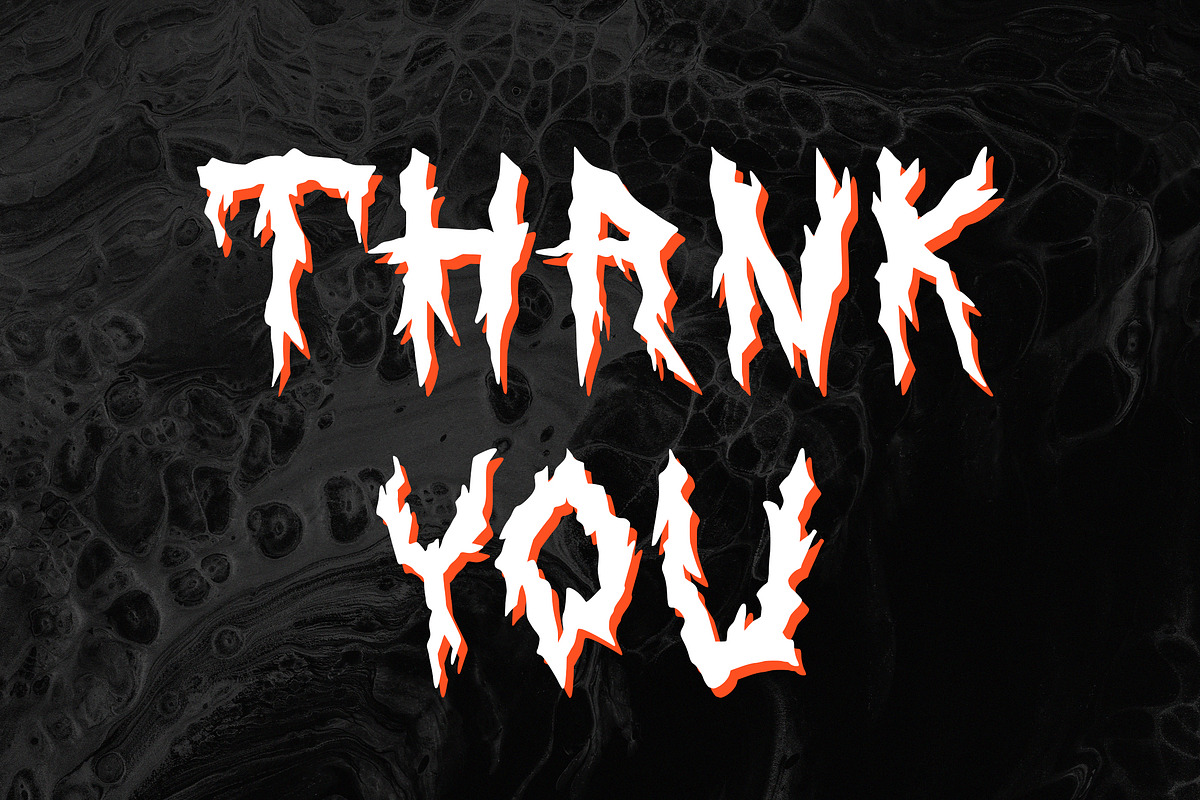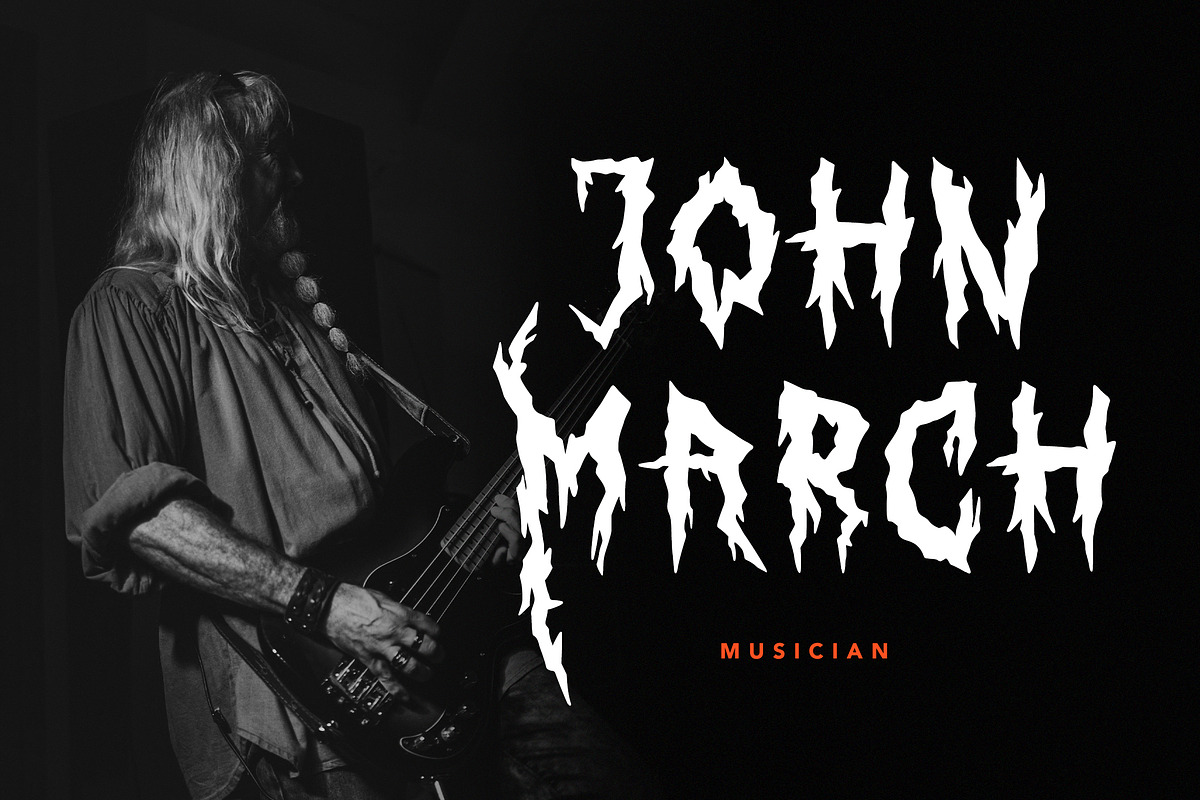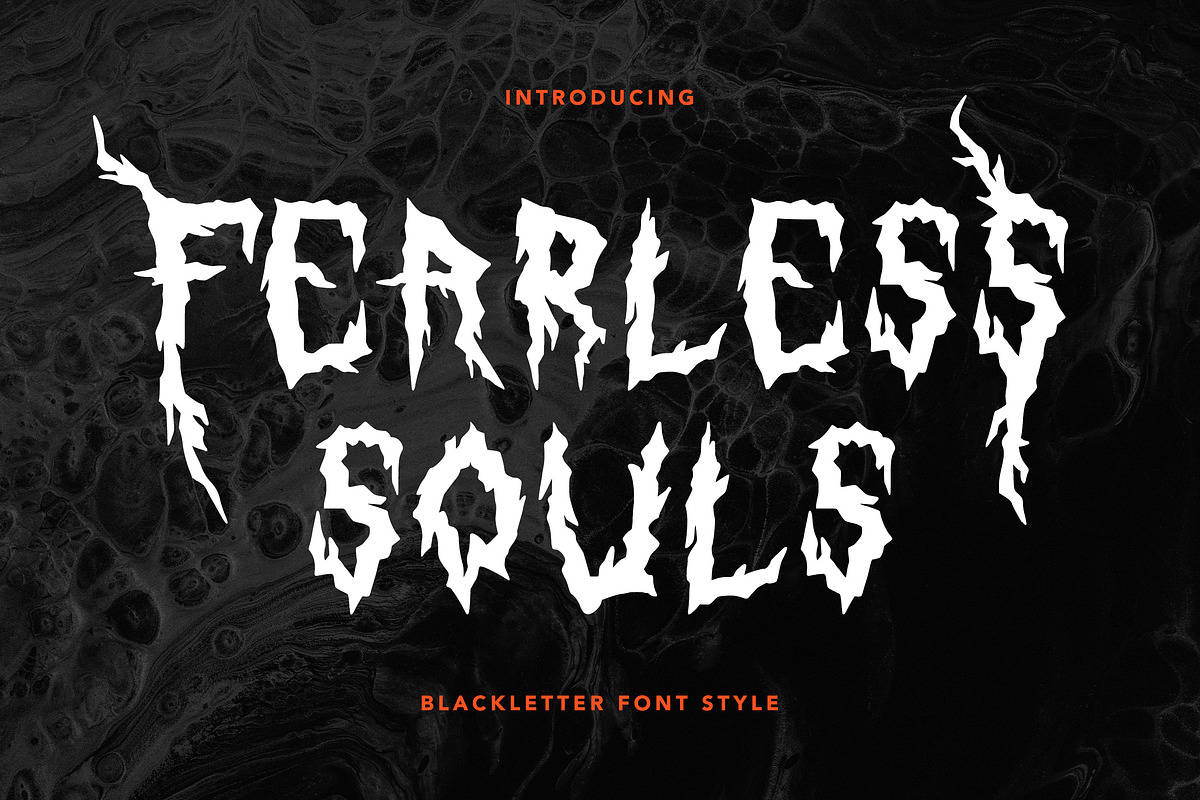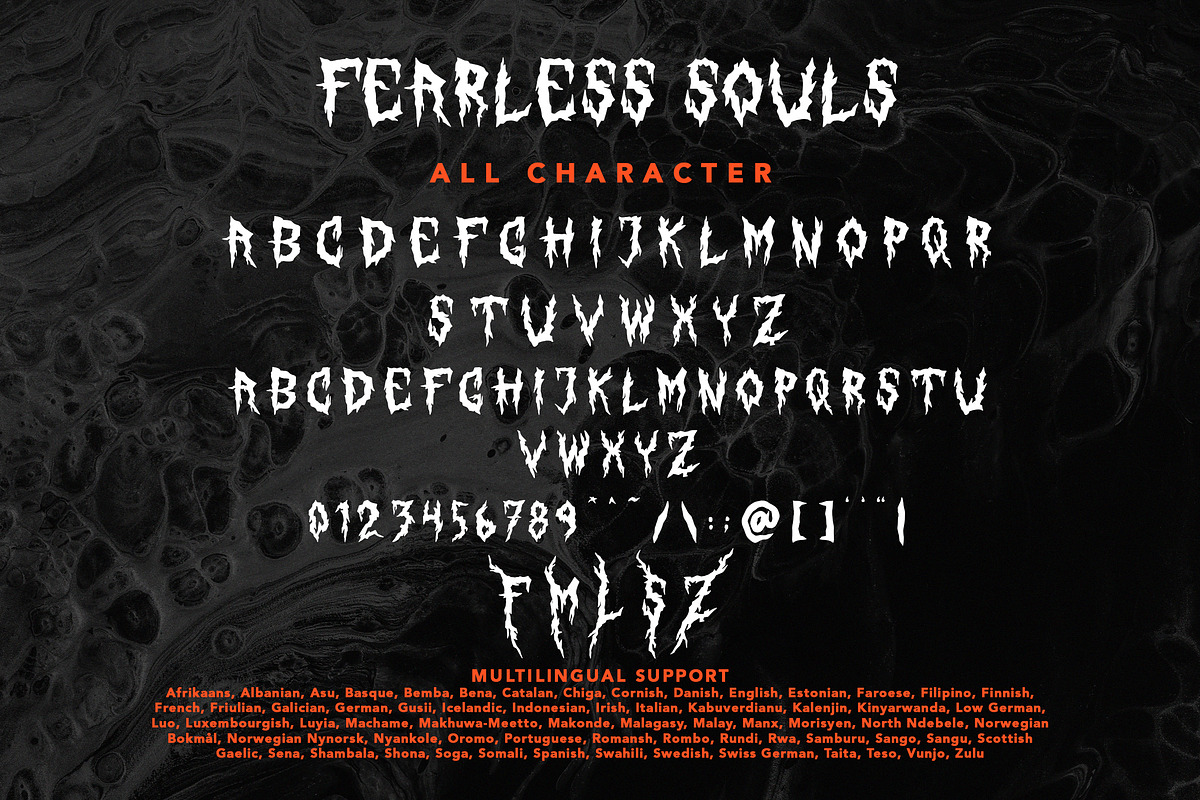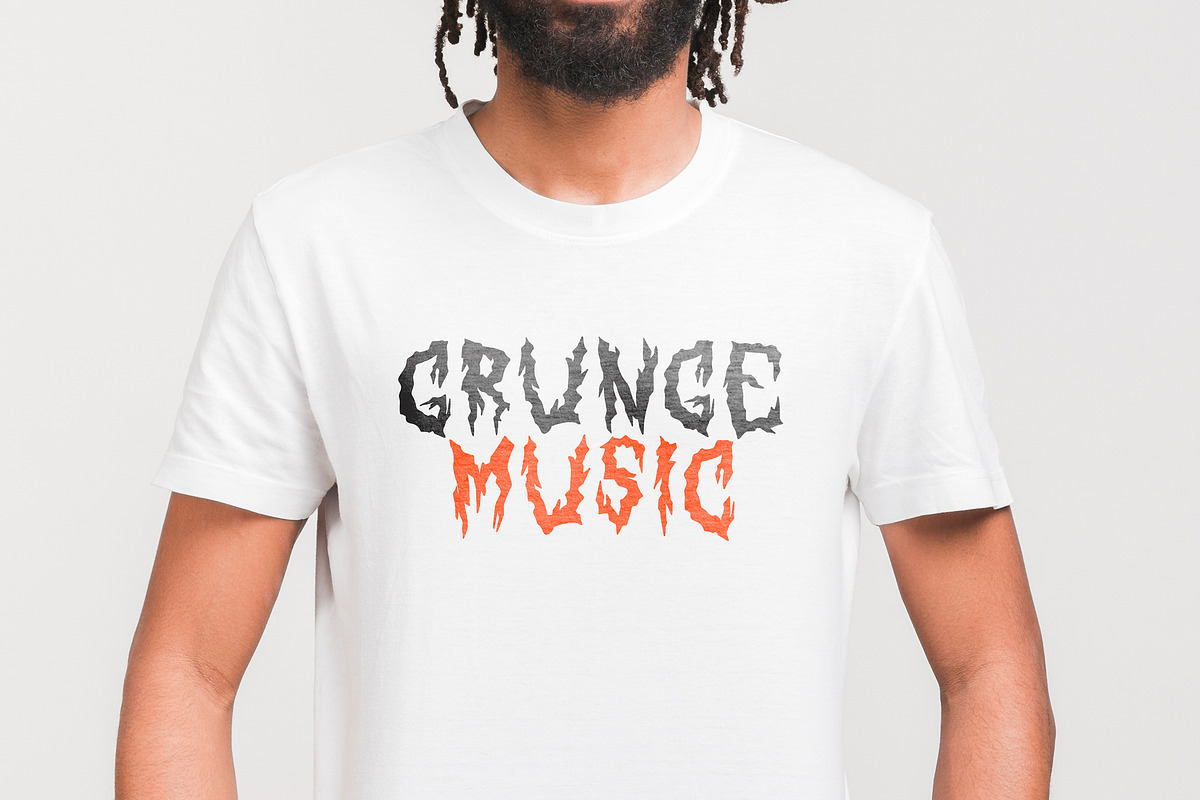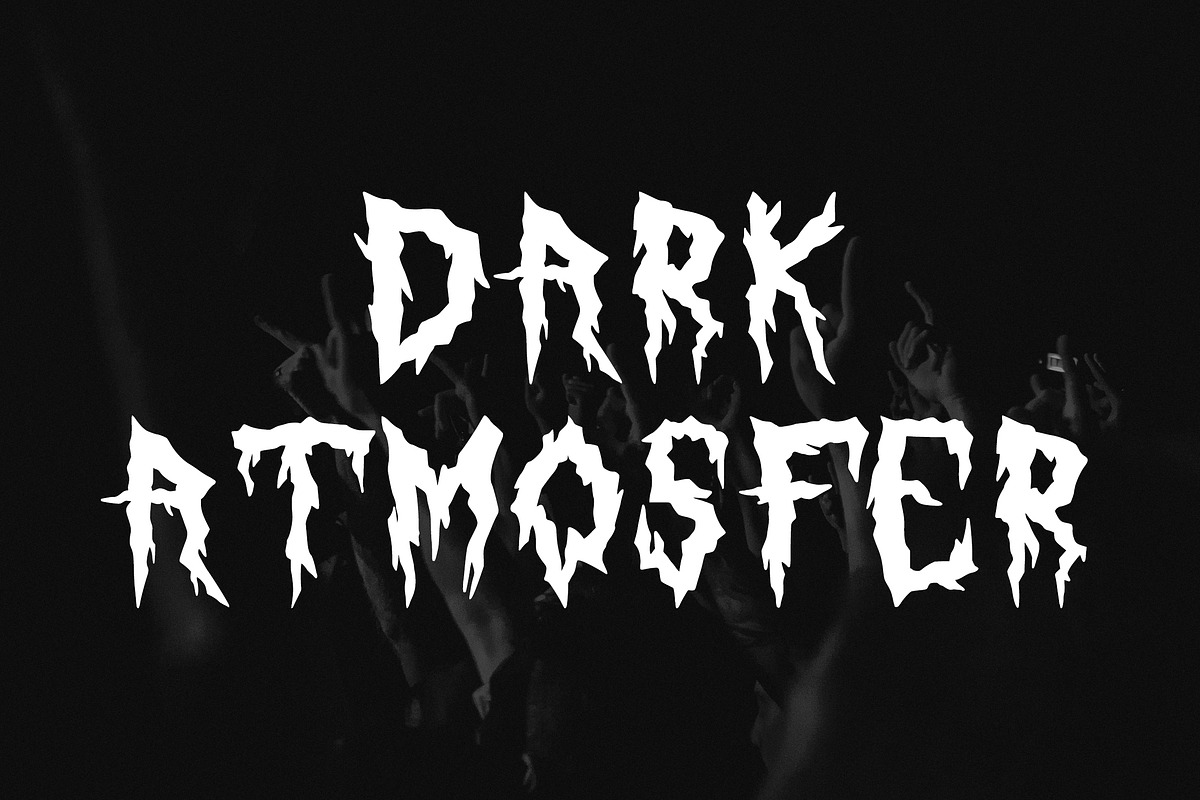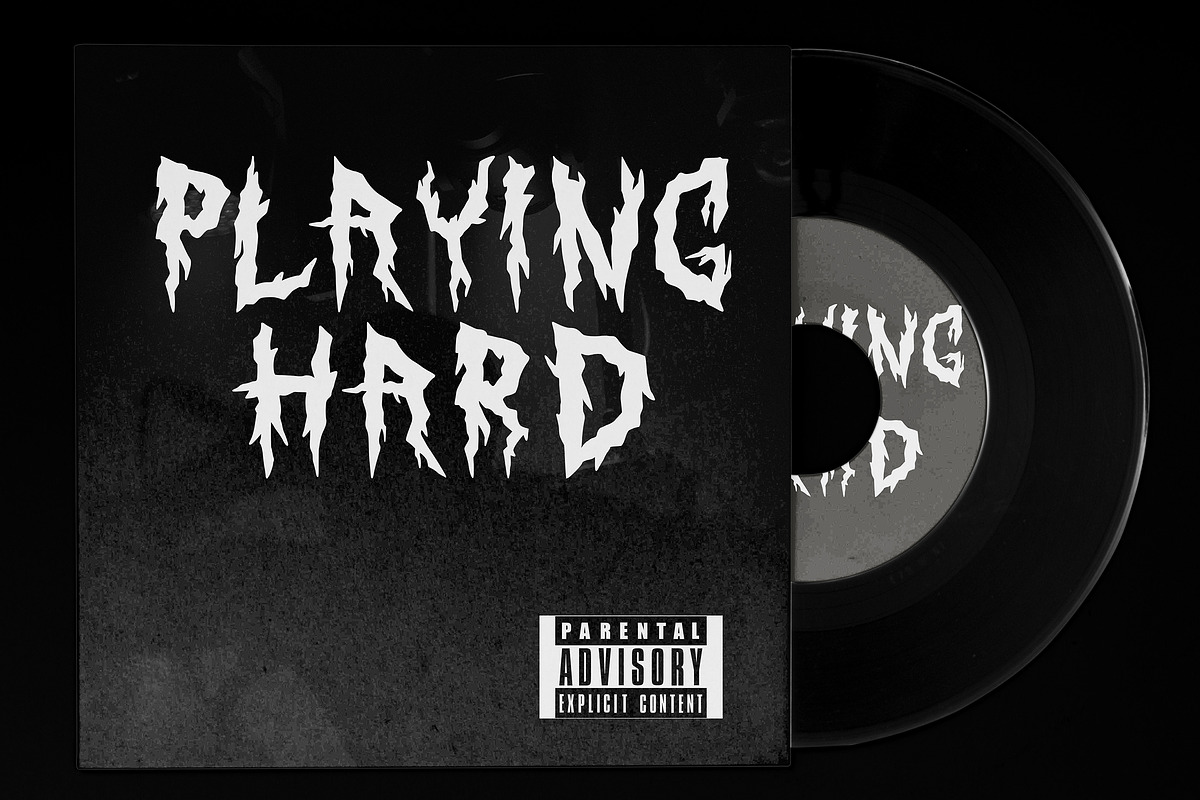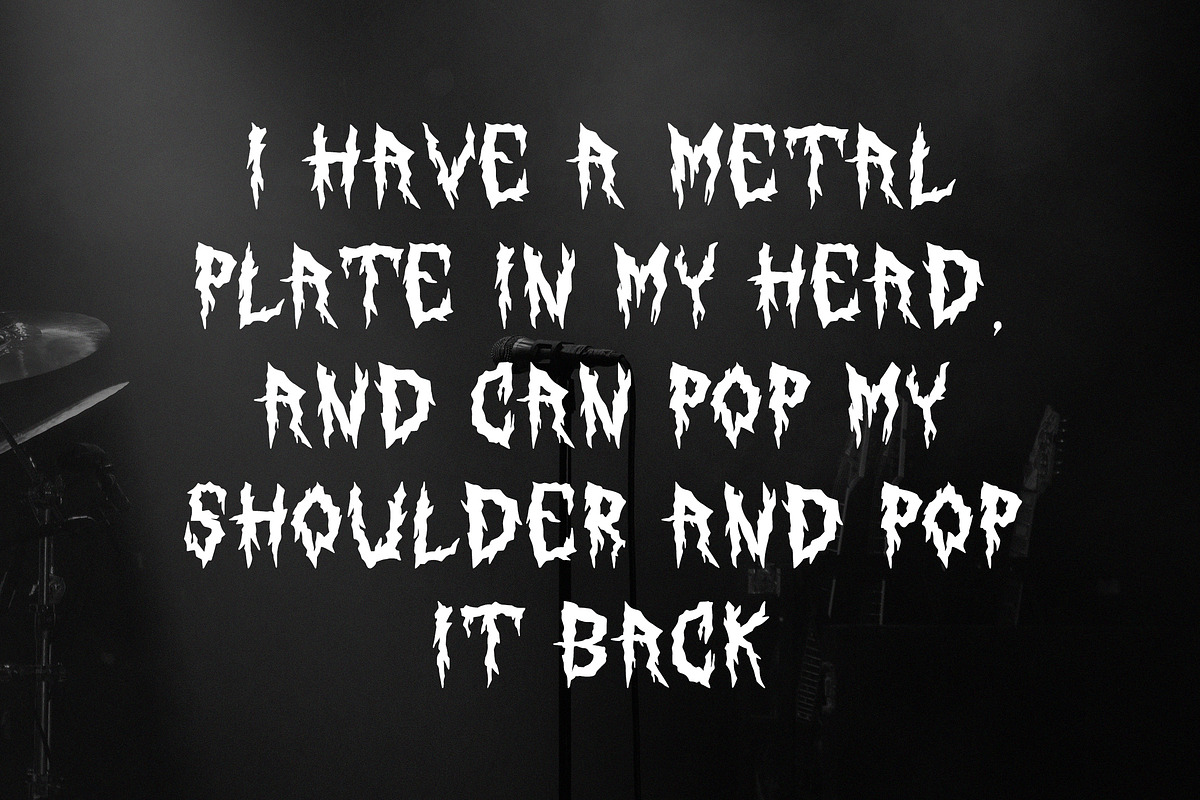
Fearless Souls
Is a blackletter display font that is inspired by gothic and horror style because its shape is very unique and is perfect for any project that you will use with this theme.
With opentype features such stylistic alternates, stylistic sets & ligatures good for logotype, poster, badge, book cover, tshirt design, packaging and any more.